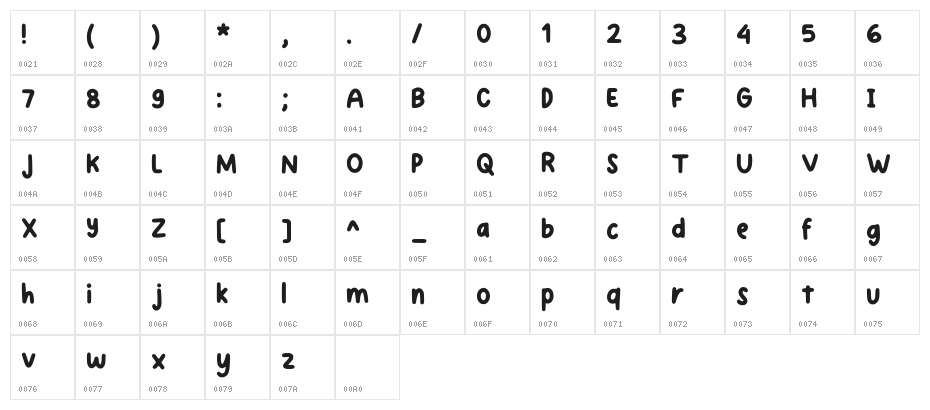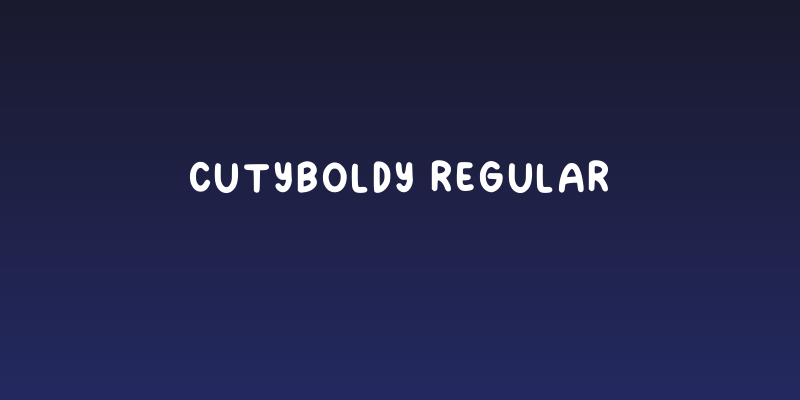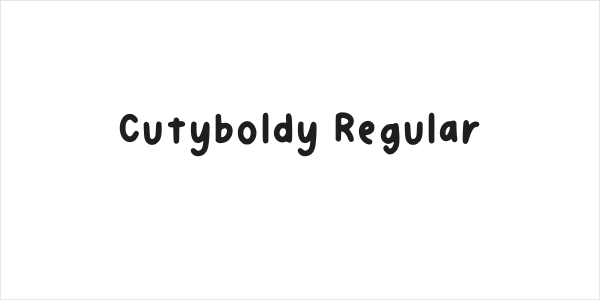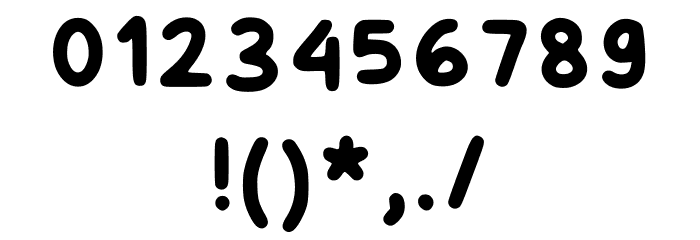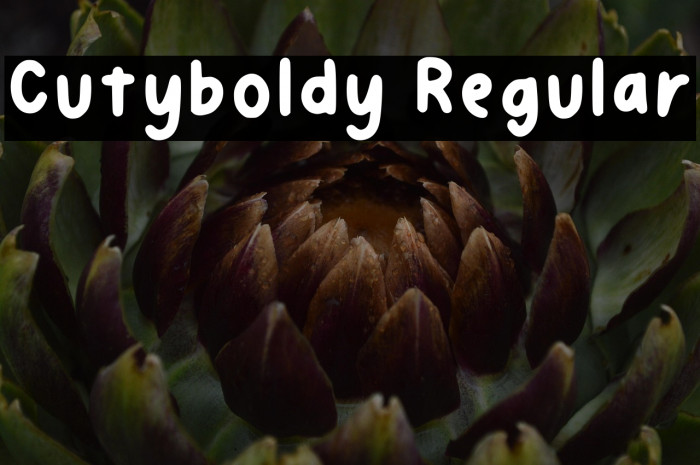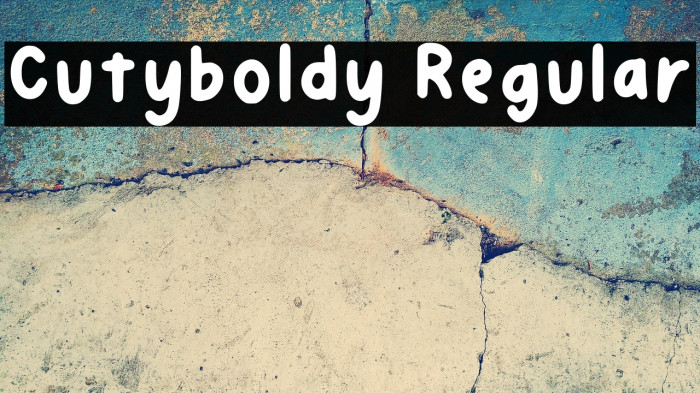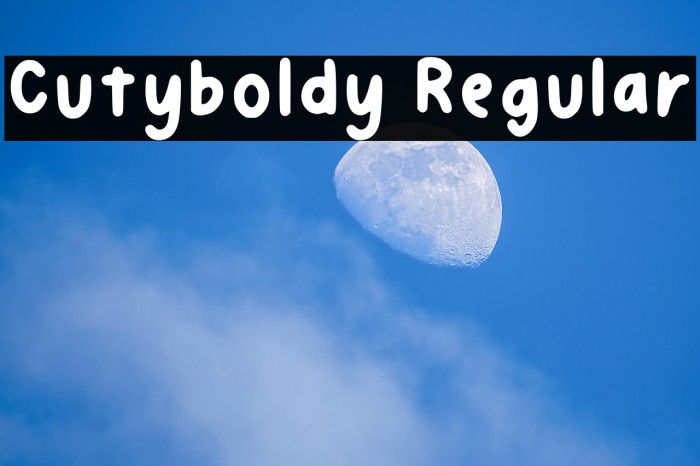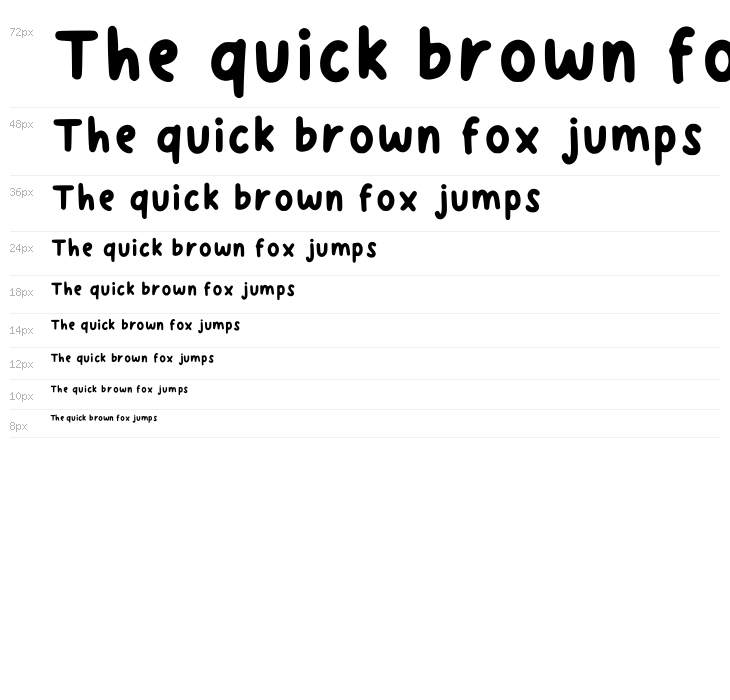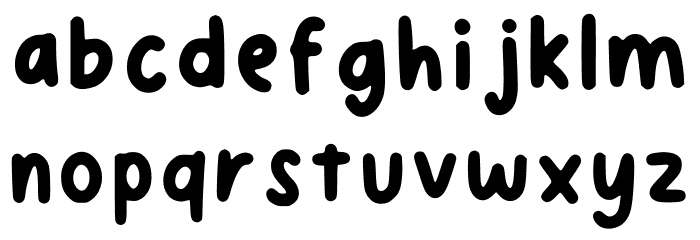
Cutyboldy Regular Font
Cutyboldy Regular Description
This playful and rounded font features bold, smooth strokes that give it a friendly and approachable appearance. The characters are slightly irregular, adding a whimsical touch that makes it stand out. Its thick lines and consistent weight make it highly legible, even at smaller sizes. The font's informal style is perfect for projects that require a fun and casual vibe. It includes a full set of uppercase and lowercase letters, numerals, and a selection of punctuation marks, ensuring versatility in various design applications.
| Proposed Projects | Ideal for children's books, playful branding, greeting cards, and casual invitations. |